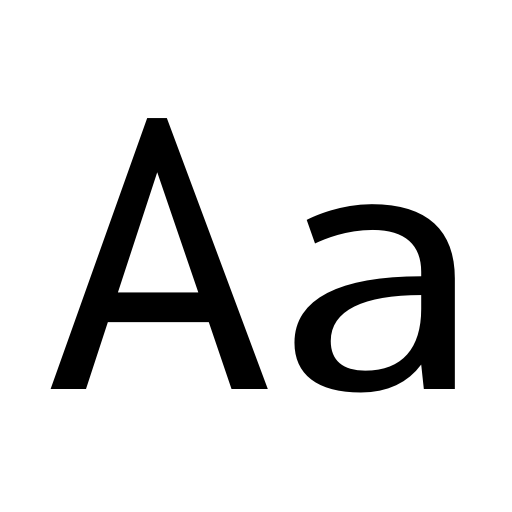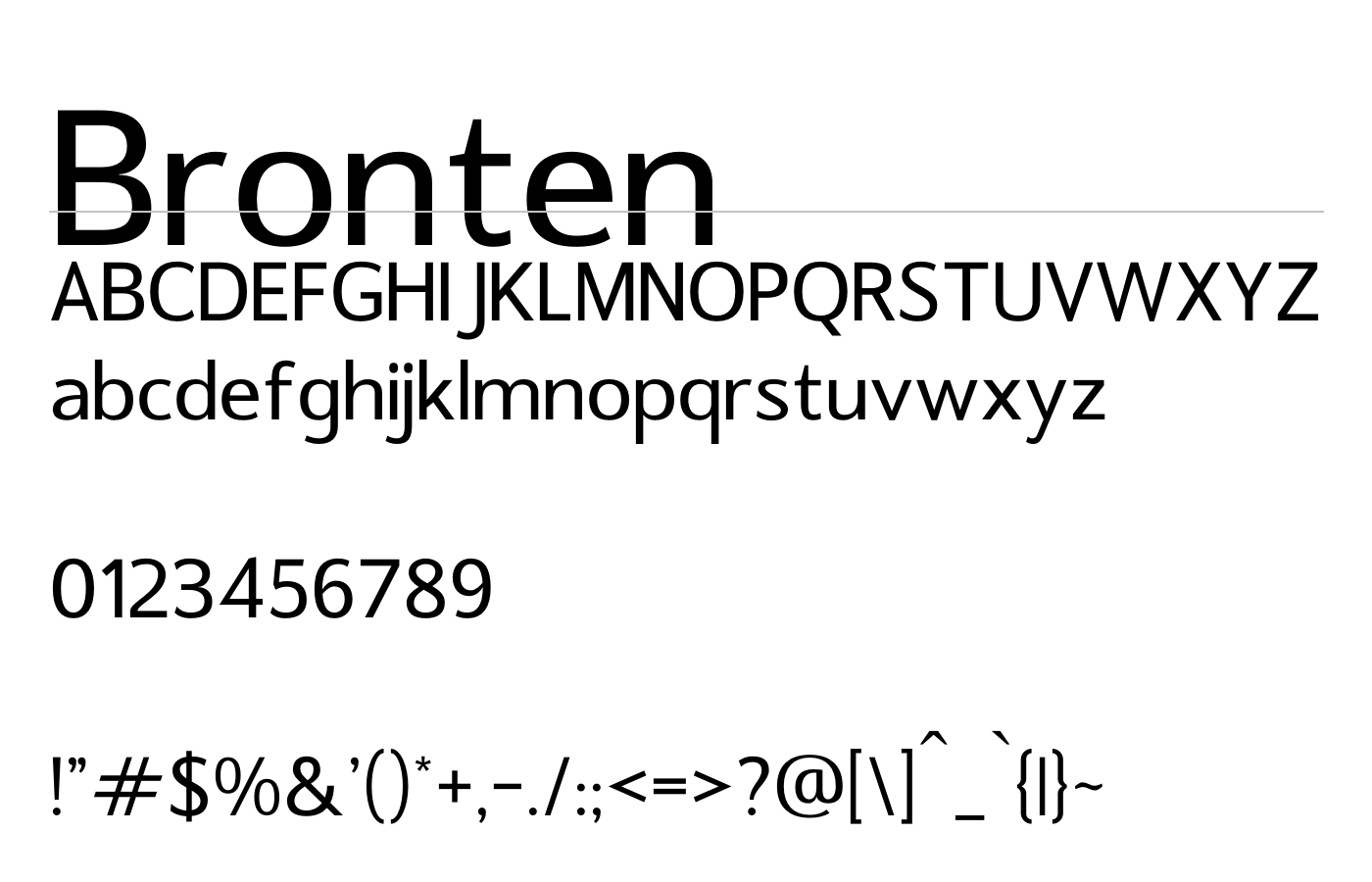
Bronten is a clean and modern sans serif font featuring a straightforward, regular weight with a slightly condensed width and medium x-height, making it highly readable. Its design includes subtle geometric touches and consistent stroke widths, giving it a professional yet approachable feel ideal for both digital and print use. This versatile typeface works well in branding, editorial, and user interfaces where clarity and simplicity are key.
Bronten Font
About Bronten Font